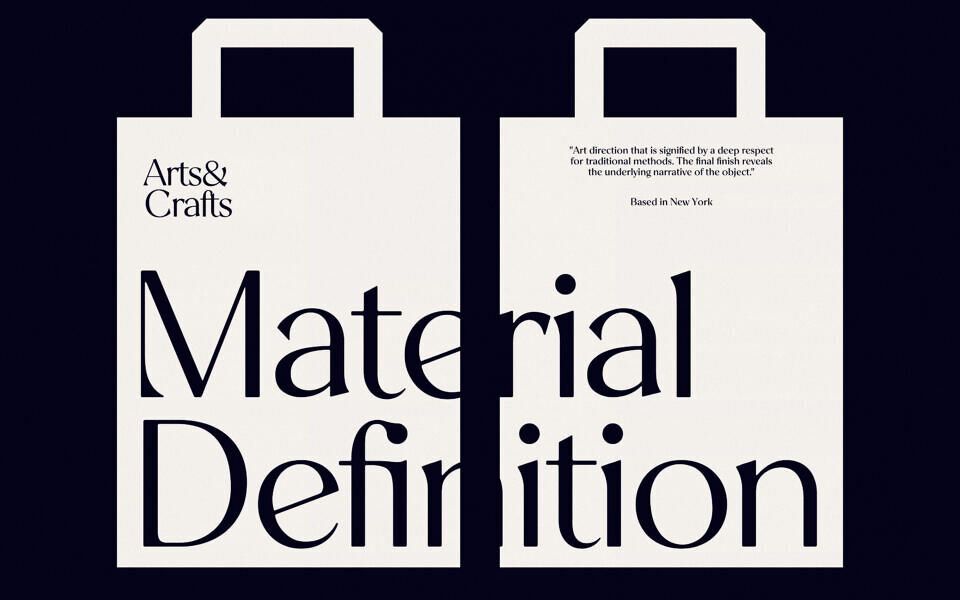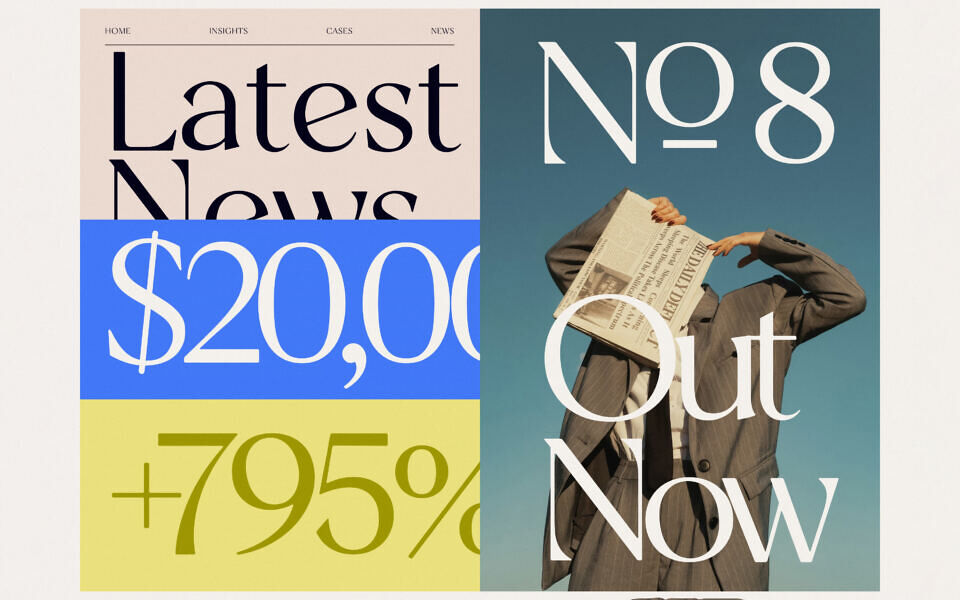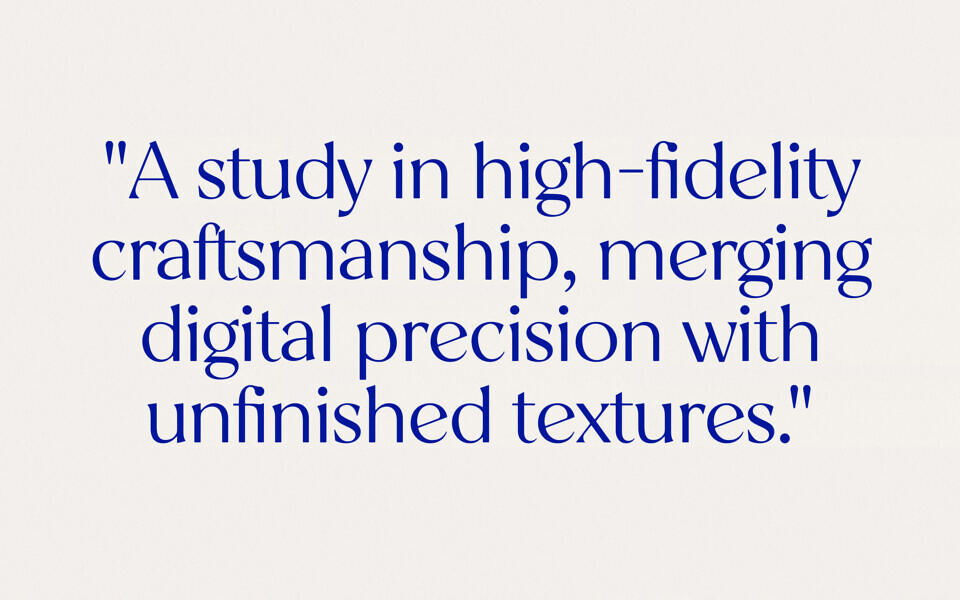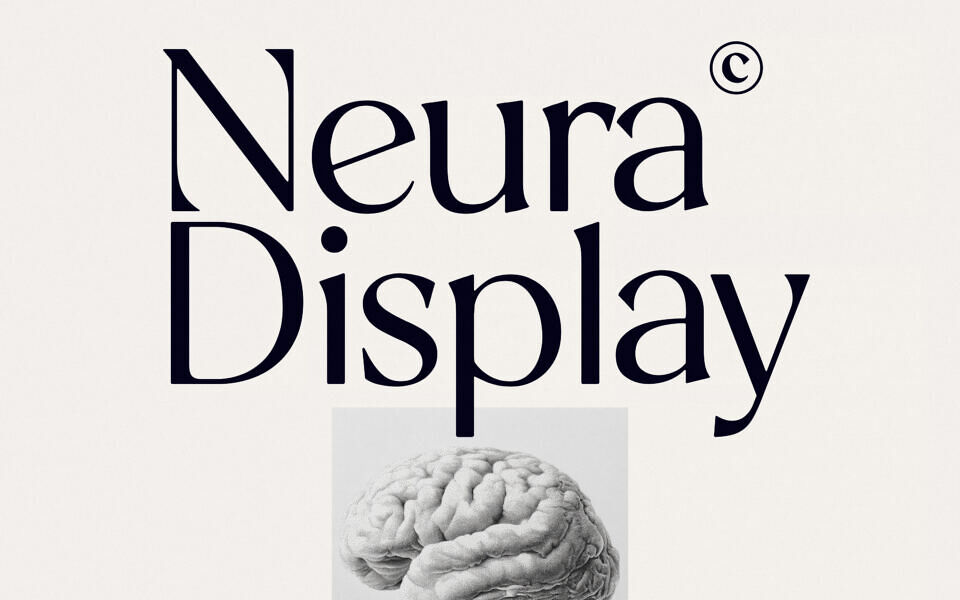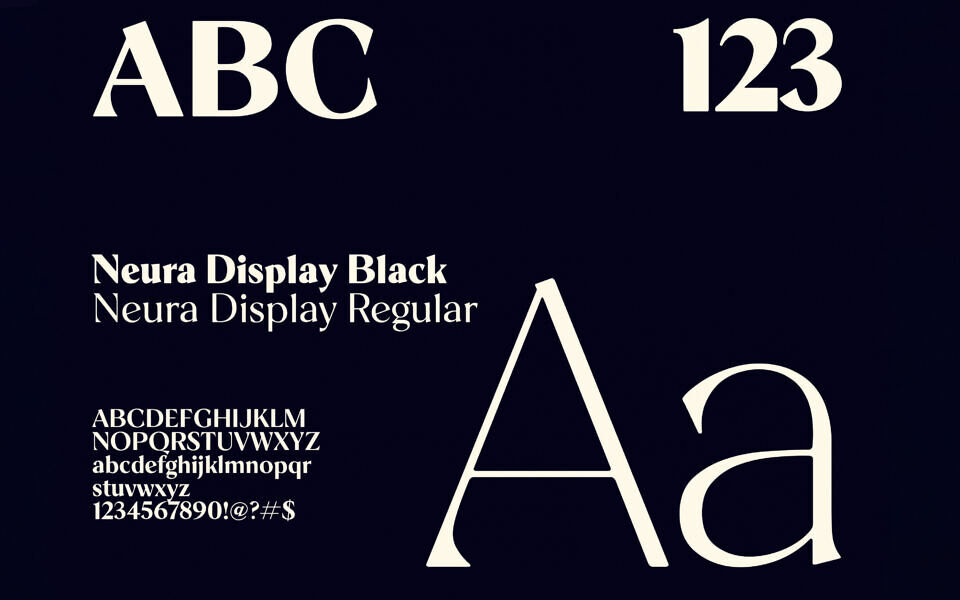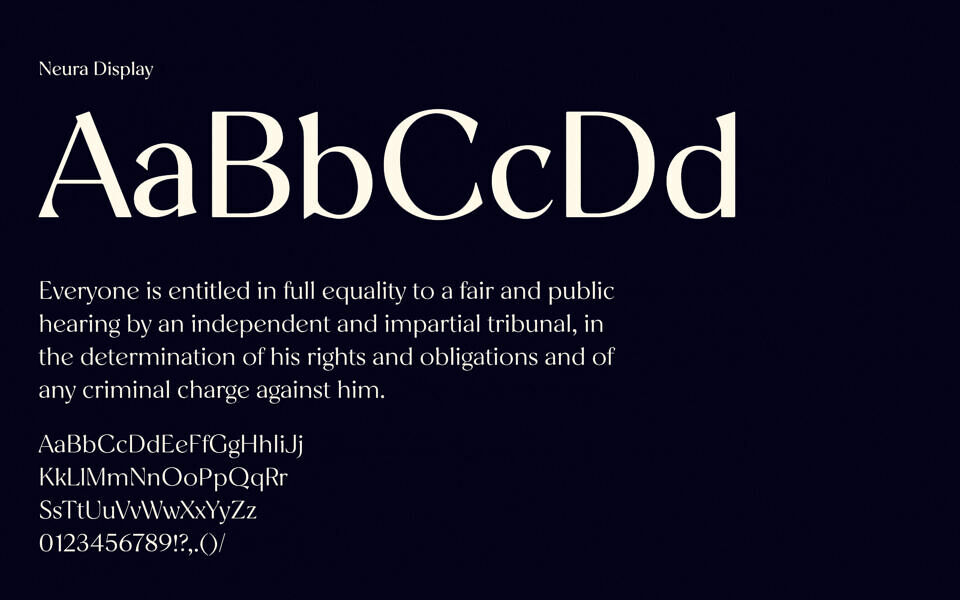
Neura Display Font Family
Neura Display is a high-contrast hybrid typeface designed for a futuristic, editorial aesthetic. By stripping traditional serif “feet” (nails and foots) while retaining elegant half-serif terminals and rounded corners, it bridges the gap between scientific precision and luxury fashion.
It is a sans-serif font at its core, but these unique terminal treatments provide a “serif-ish” vibe that makes it stand out in tech, AI, and high-end branding contexts. The family features a variable weight axis ranging from 100 (Thin) to 900 (Black), specifically optimized for large headlines and display use.